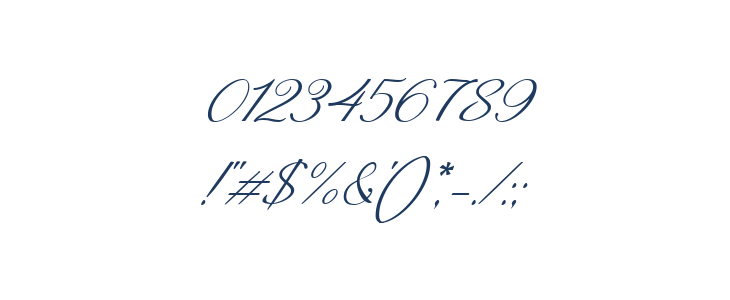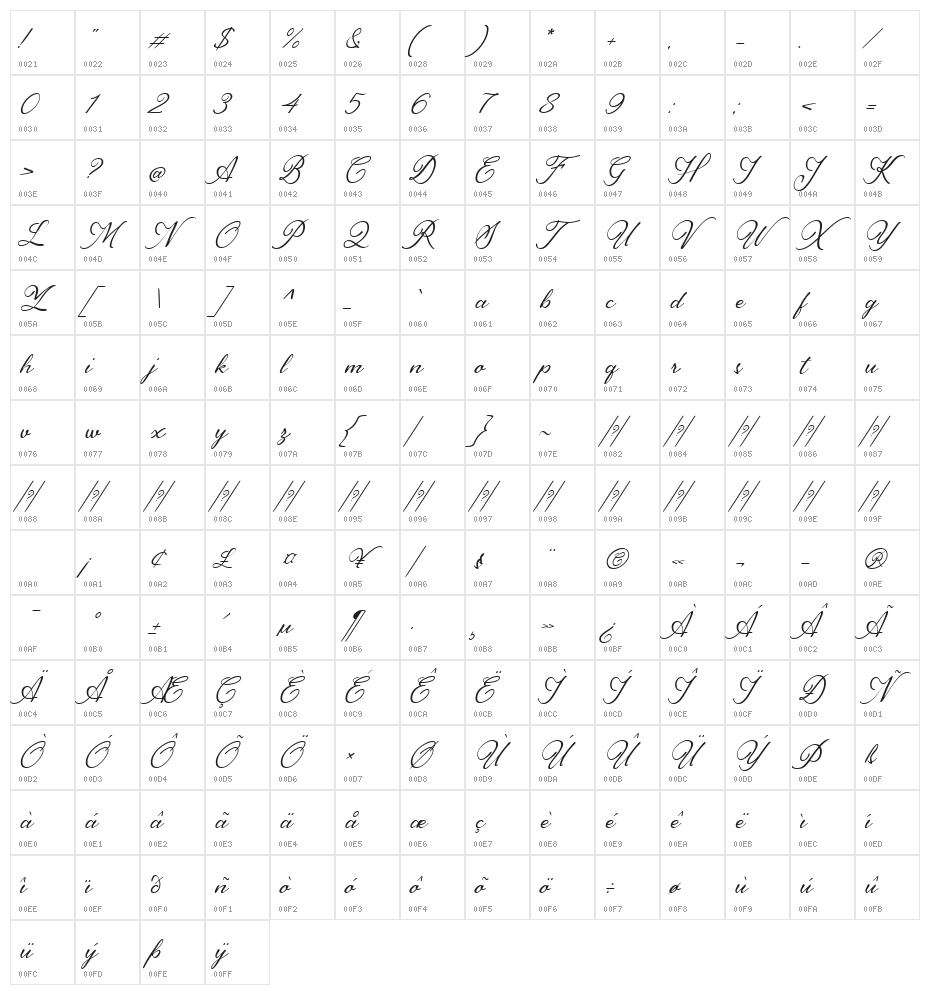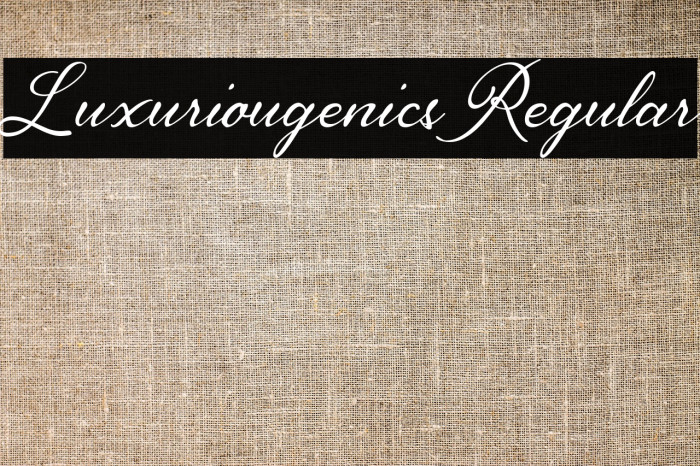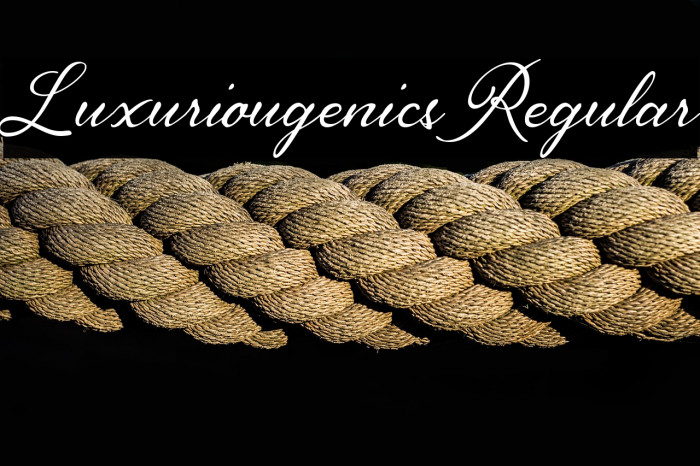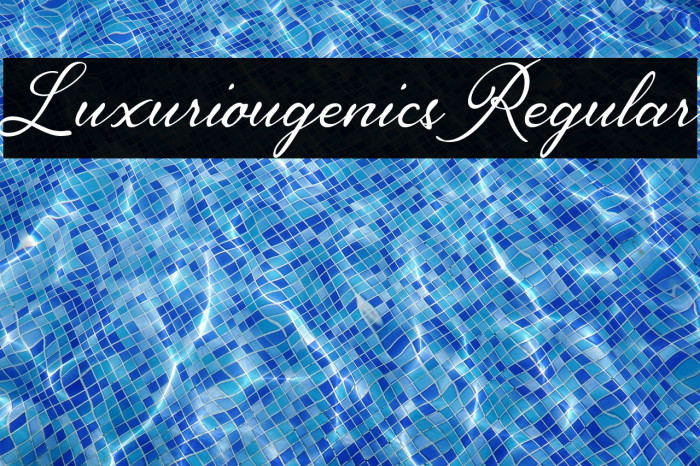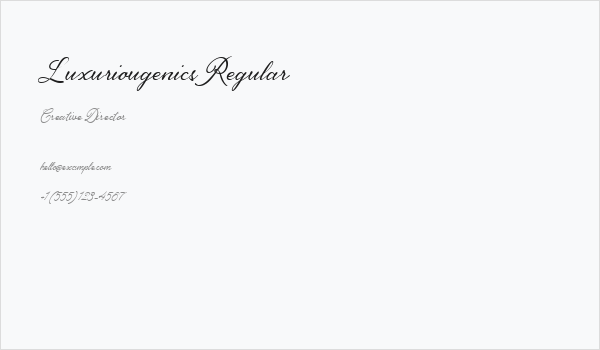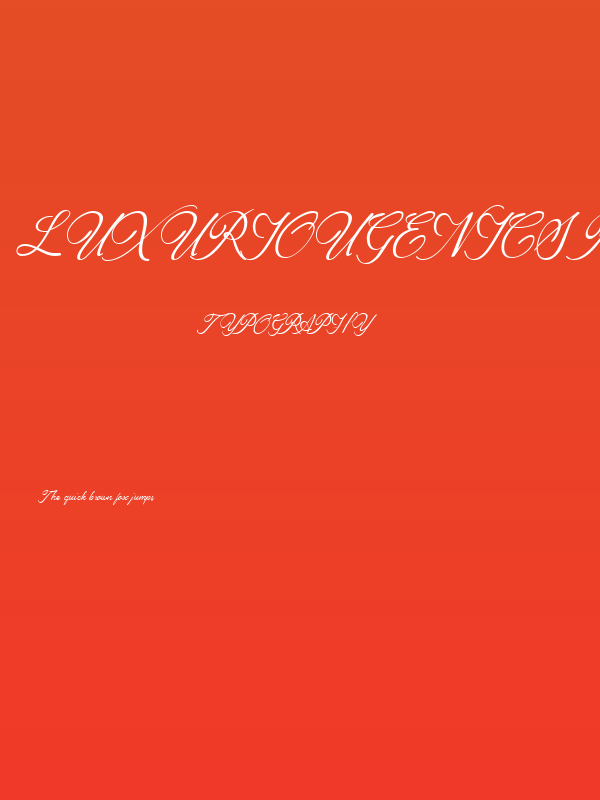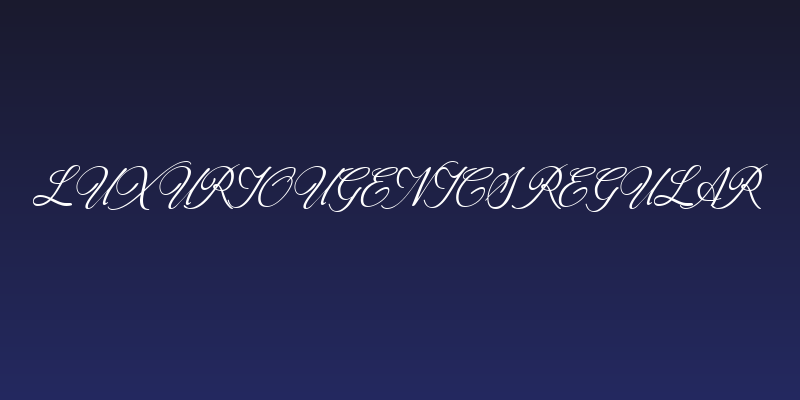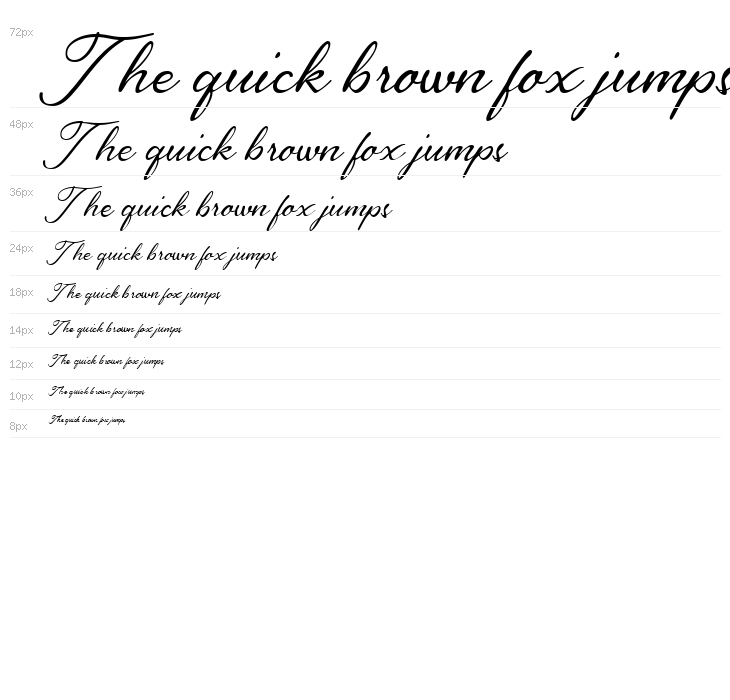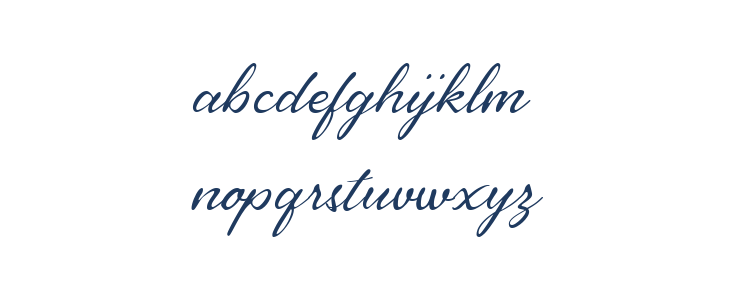
Luxuriougenics Regular Font
Luxuriougenics Regular Description
This elegant script font features flowing, cursive letterforms that exude sophistication and grace. The uppercase letters are intricately designed with sweeping curves and flourishes, while the lowercase letters maintain a consistent, flowing style that complements the uppercase. The numerals and special characters are crafted with the same attention to detail, ensuring a cohesive appearance across all glyphs. The font's overall aesthetic is both luxurious and refined, making it ideal for projects that require a touch of elegance.
| Overall Style | Elegant, Luxurious |
| Proposed Projects | Ideal for wedding invitations, luxury branding, elegant stationery, and high-end product packaging. |